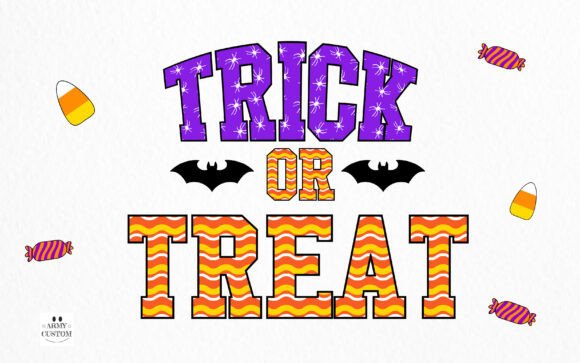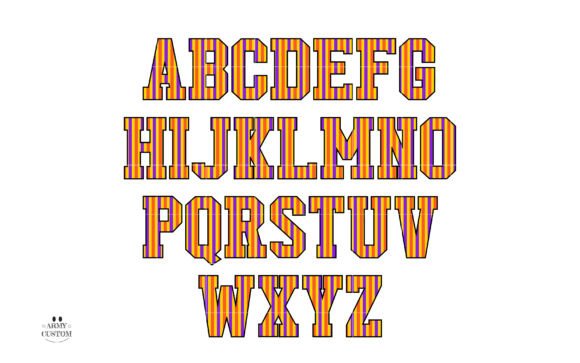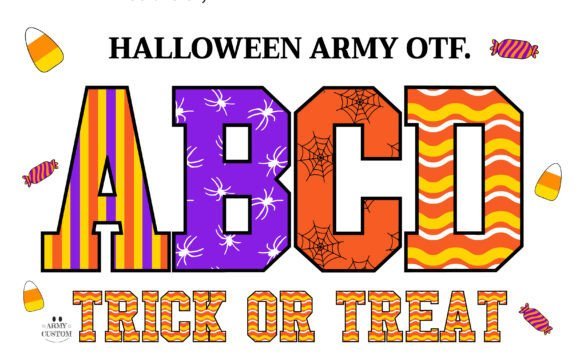
Introduction to Halloweenarmy Web Font
HALLOWEEN ARMY OTF font collection is a display of four unique, Halloween-themed patterns, designed to be applied to a single, bold uppercase typeface.
Each pattern offers a distinct personality, creating a versatile decorative set The first is a vibrant stripe, reminiscent of classic candy corn, with alternating bands of rich purple and bright yellow-orange.